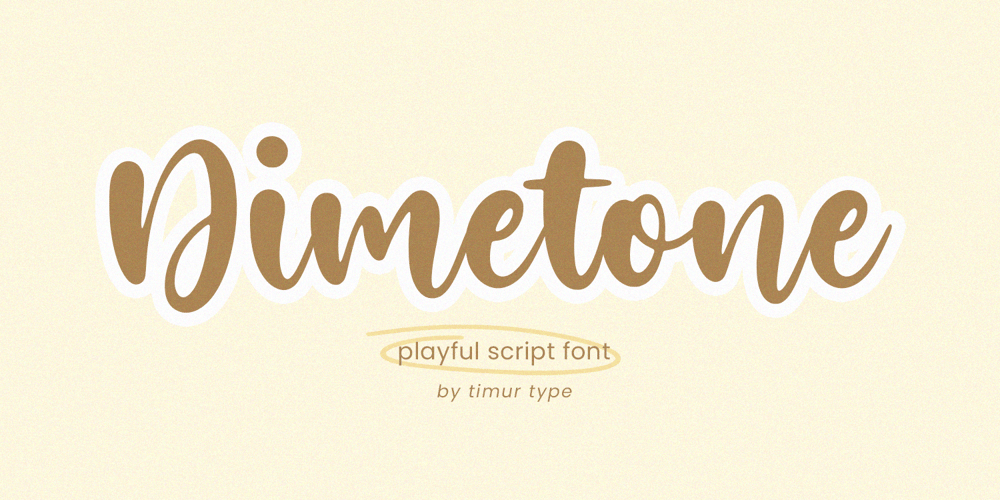
Dimetone Font Family was designed by Wara Sigit Tri Pamungkas and published by Timurtype. Dimetone contains 1 styles and family package options. Proudly presented by Timur Type: Dimetone – A handwritten script fontDimetone is perfect for product packaging, branding projects, magazine, social media, wedding invitations, or just used to express words above the background.Dimetone has multilingual support.Embellish your designs with our original fonts. Enjoy the font, thank you!